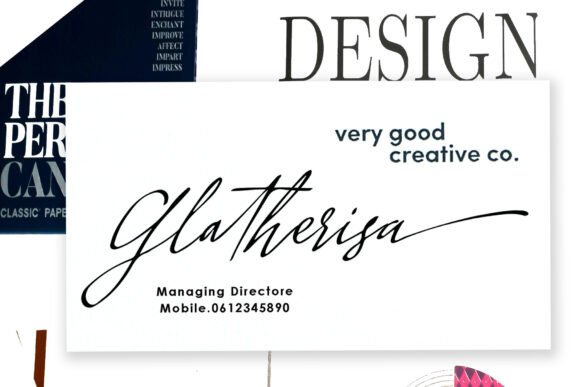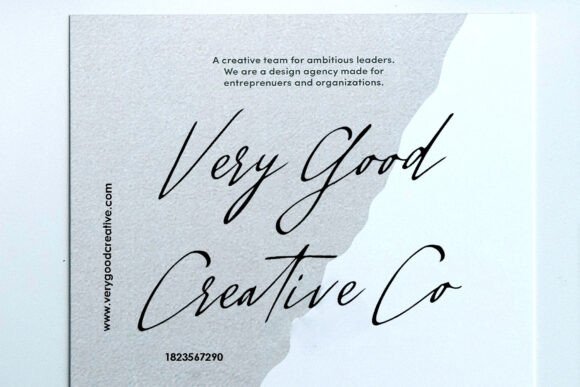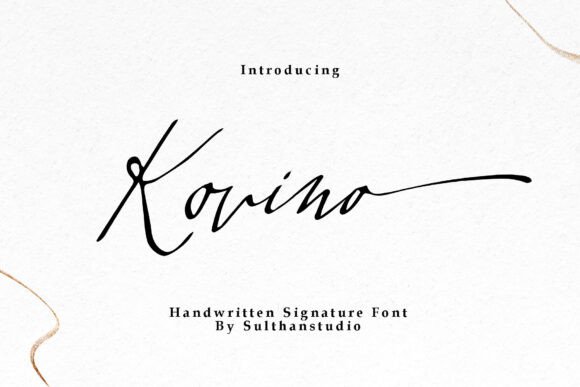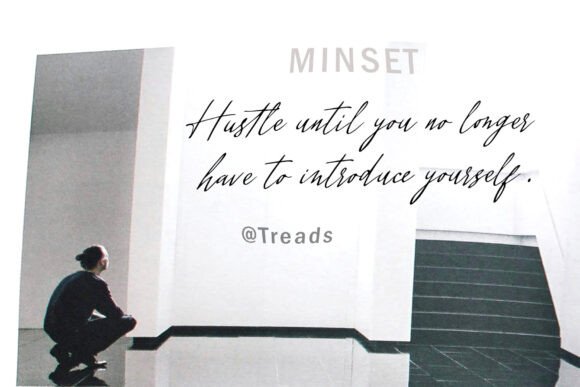
Kovino Font: Modern Handwritten Signature Font for Branding & Social Media
About the Kovino Font
Unleash your creativity with Kovino Font, a versatile font perfect for a wide range of applications. Immerse yourself in the organic splendor of the Natural Ink Signature font. It’s an artistic embodiment of handwritten signature beauty, personifying originality at its finest. Its flexible form is easily adaptable, making it the perfect tool for infusing a personal essence into greeting cards, boosting your social media persona, or lending an exclusive flair to product titles. Vibrantly elevate your creative projects with the eclectic allure and raw refinement of the Natural Ink Signature font.
Kovino Font Usage Examples